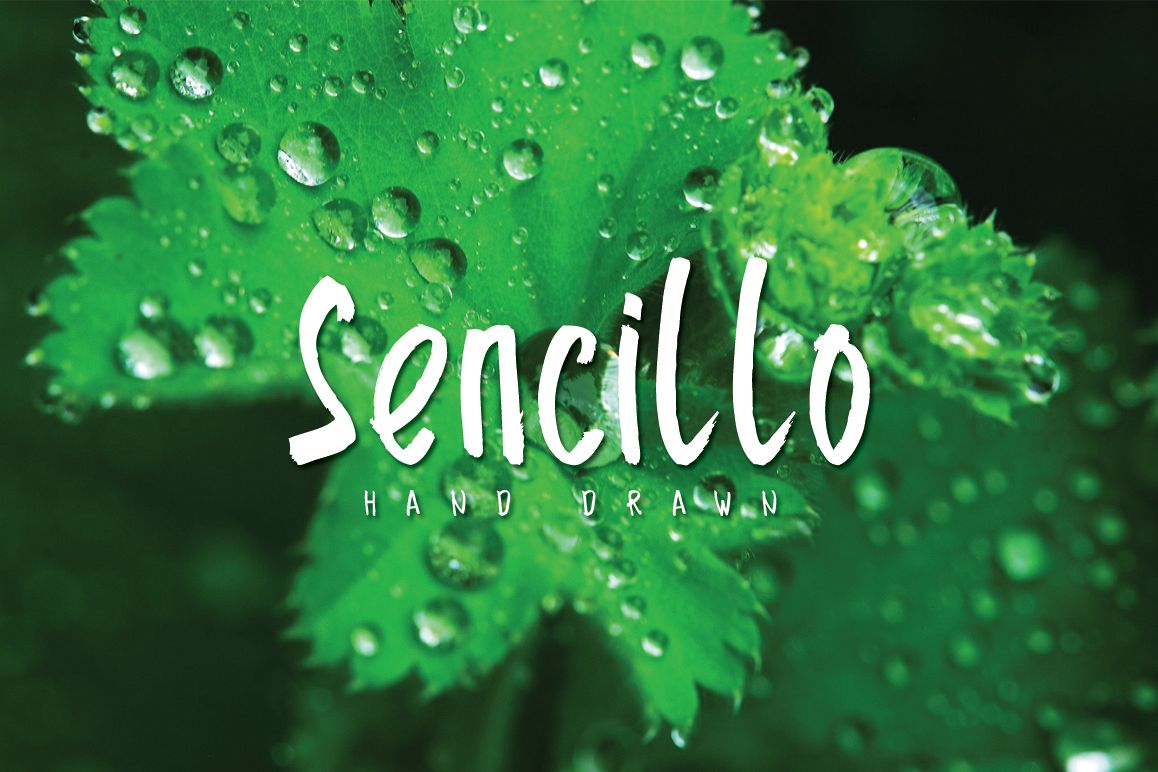
Sencillo Hand Drawn
SencilloHanddrawn-Regular
Sencillo Hand Drawn is textured brush font, contemporary approach to design, handmade natural with an less regular baseline. Suitable for use in title design. Such as apparel, invitations, books tittle, stationery design, quotes, branding, logos, greeting card, t-shirt, packaging design, poster and more.